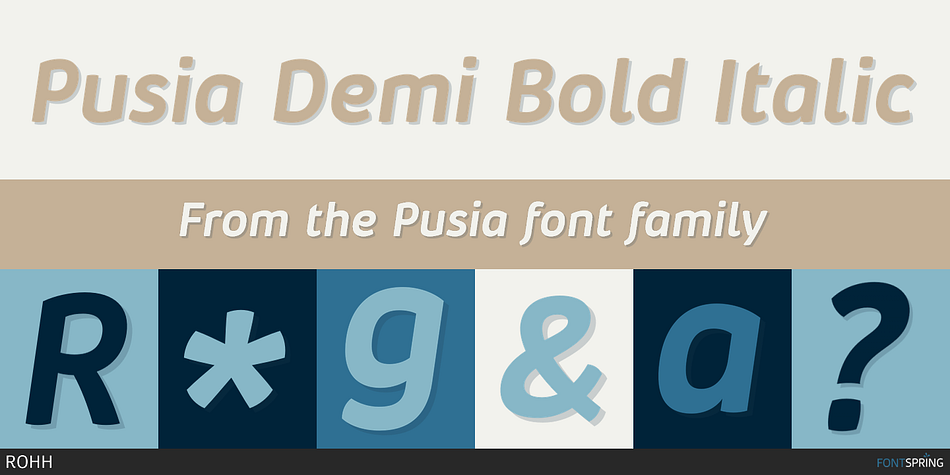
Pusia Demi Bold Italic
Designed by Roch Modrzejewski, Pusia is a sans serif font family. This typeface has twenty styles and was published by ROHH.
Pusia is a versatile font family with a lot of character and warmth.
Pusia is a versatile font family with a lot of character and warmth. It is a professional, contemporary sans serif with original letter forms, friendly and dynamic feel. Its subtle curved shapes and attention to details give Pusia a very distinctive look. Its proportions and optimized kerning make it a very clean and legible in all sizes.
Pusia is a great choice for all kinds of design work, both print and on-screen. It is perfect for display use in headlines, advertising, logo design and branding as well as long and short paragraphs of text.
Pusia consists of 20 fonts - 10 weights and their corresponding italics. It has extended language support including cyrillic and true italics, as well as broad number of OpenType features, such as small caps, case sensitive forms, ligatures, stylistic alternates, contextual alternates, lining, oldstyle, tabular, small cap and circled figures, slashed zero, fractions, superscript and subscript, ordinals, currencies and symbols.
Foundry ROHH
Designer Roch Modrzejewski